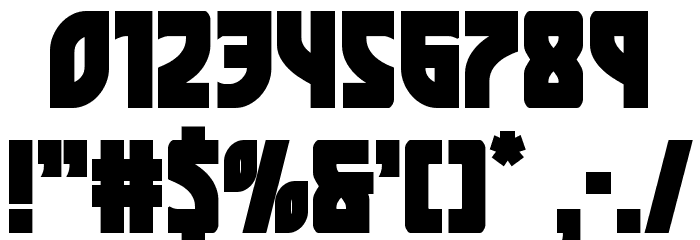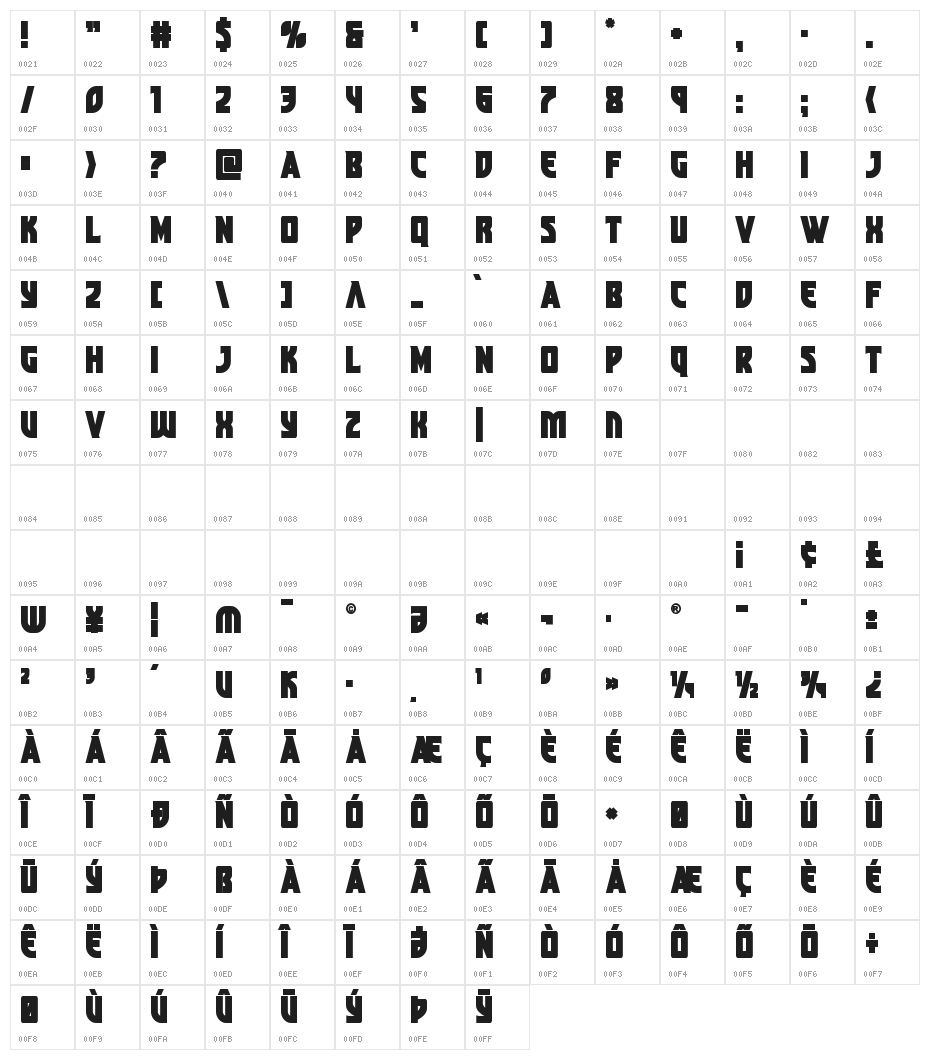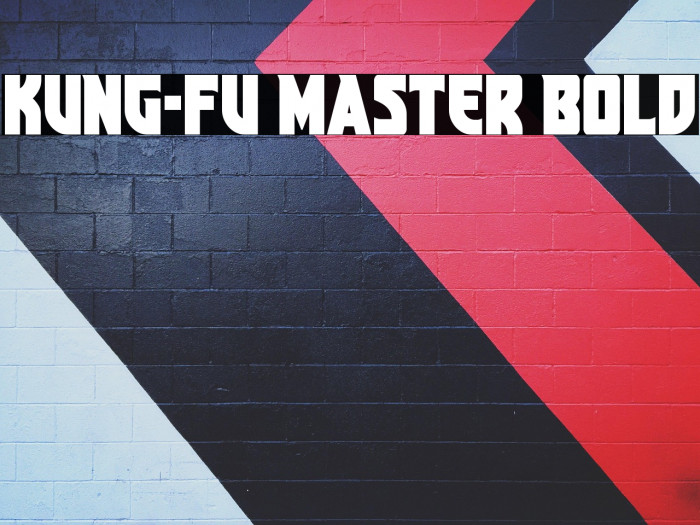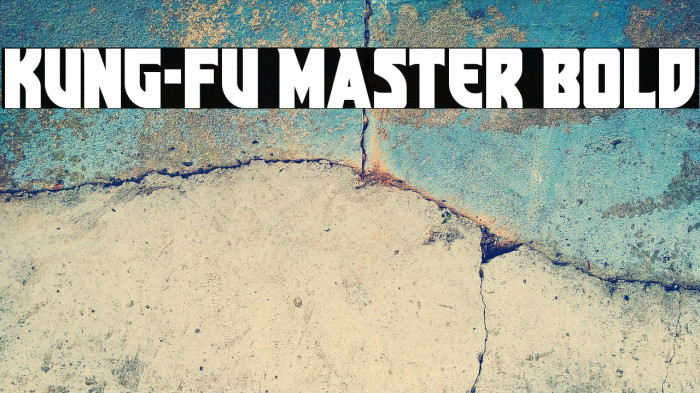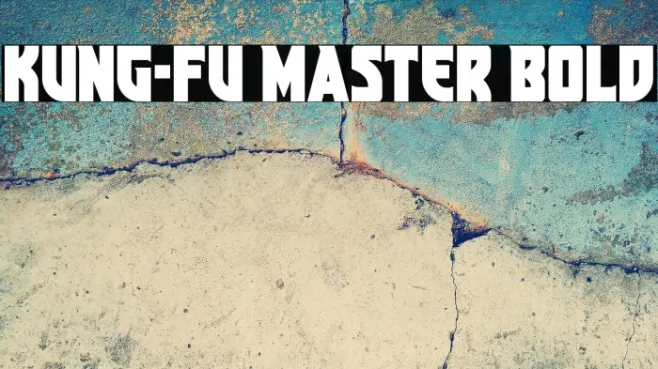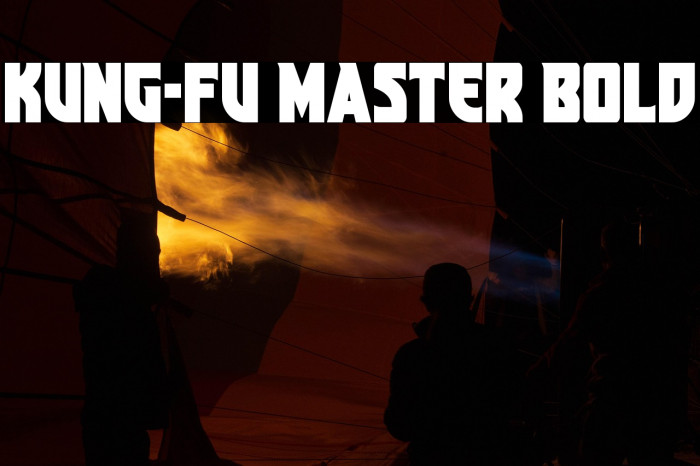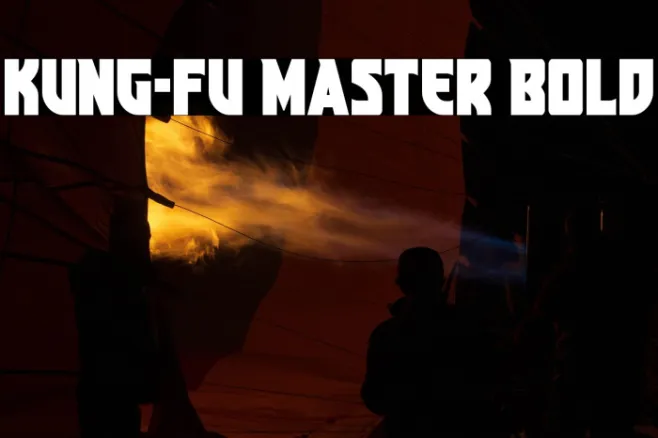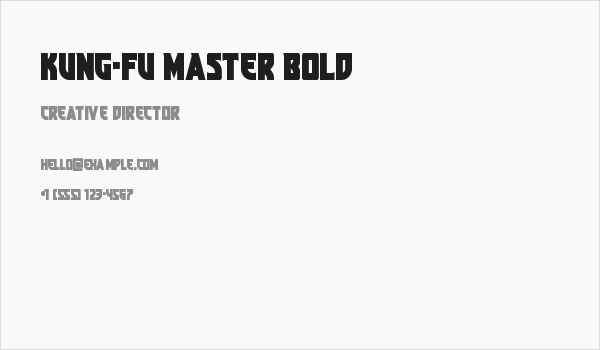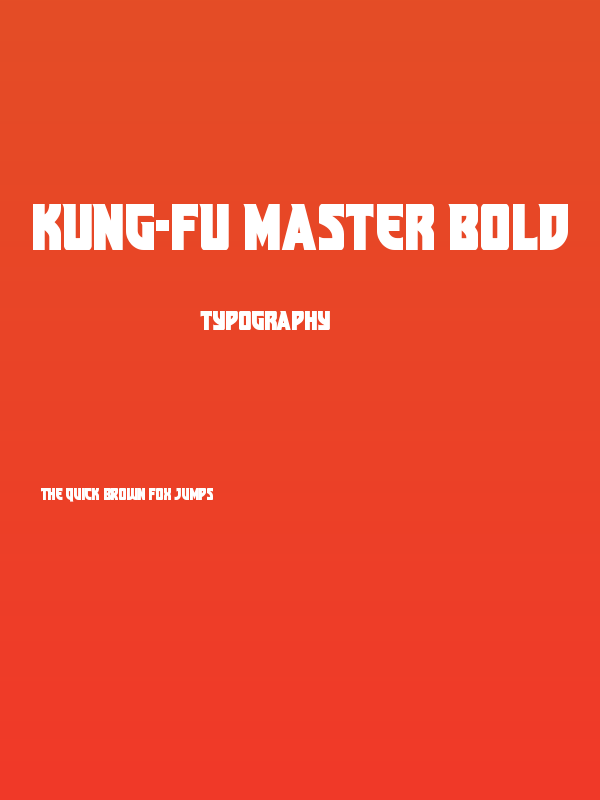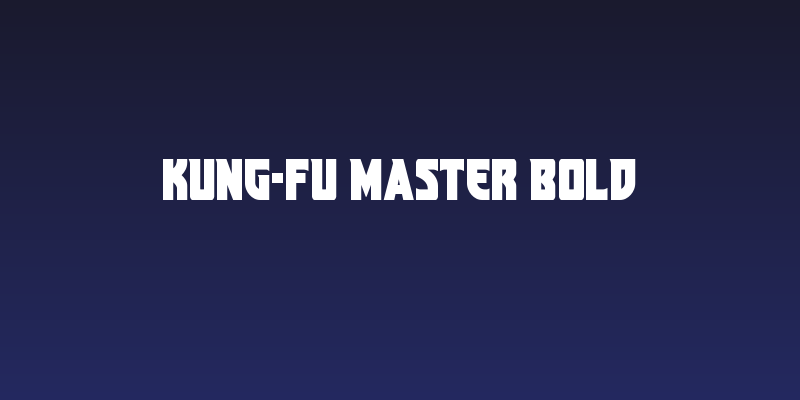
Kung-Fu Master Bold Font
Kung-Fu Master Bold Description
This bold, dynamic font features strong geometric shapes and sharp angles, creating a powerful and striking appearance. The characters are designed with a blocky, robust style that conveys a sense of strength and energy. The uppercase letters are particularly prominent, with a uniform height and width that enhances their boldness. The numbers and special characters maintain the same bold, angular design, ensuring consistency across all elements. This font's unique style makes it stand out, capturing attention with its dramatic and impactful presence.
| Proposed Projects | Ideal for projects that require a bold statement, such as posters, logos, video game titles, or martial arts-themed designs. |